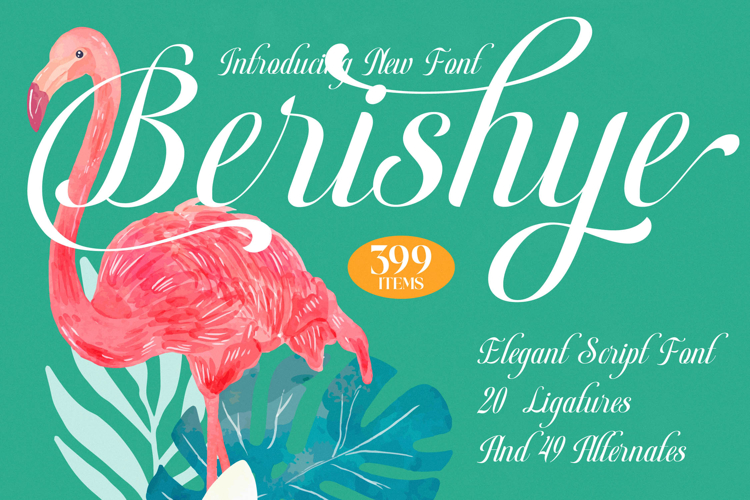
Berishye - Elegant Script Font
Elevate your design projects with unparalleled grace and sophistication. Introducing Font Berishye - Elegant Script Font Script, a truly exquisite typeface meticulously crafted to infuse every word with a touch of timeless allure. Its flowing, high-contrast strokes and harmonious connections evoke a sense of refined artistry, making it an ideal choice for creations demanding an unmistakably luxurious aesthetic.
Unleash your creative potential with remarkable customization options. Font Berishye - Elegant Script Font Script boasts an impressive collection of 20 ligatures and 49 alternates, allowing for truly unique and personalized typography. These rich OpenType features provide endless possibilities for crafting distinctive headlines, elegant logotypes, and captivating textual compositions that truly stand out.
Perfectly suited for an array of prestigious applications, this font transforms ordinary designs into extraordinary statements. Whether for luxury branding, high-end packaging, wedding invitations, fashion editorials, or upscale event materials, Font Berishye - Elegant Script Font Script delivers impactful elegance. With its extensive multilingual support, Font Berishye - Elegant Script Font Script adapts seamlessly across global markets, making it incredibly versatile for international projects.
Invest in a typeface that communicates prestige and artistic integrity. Font Berishye - Elegant Script Font Script is more than just a font; it’s a strategic asset for designers and brands aiming for a distinct, memorable presence. Enhance your visual communication with this professional, calligraphic script, ensuring your message is conveyed with undeniable charm and exquisite detail.